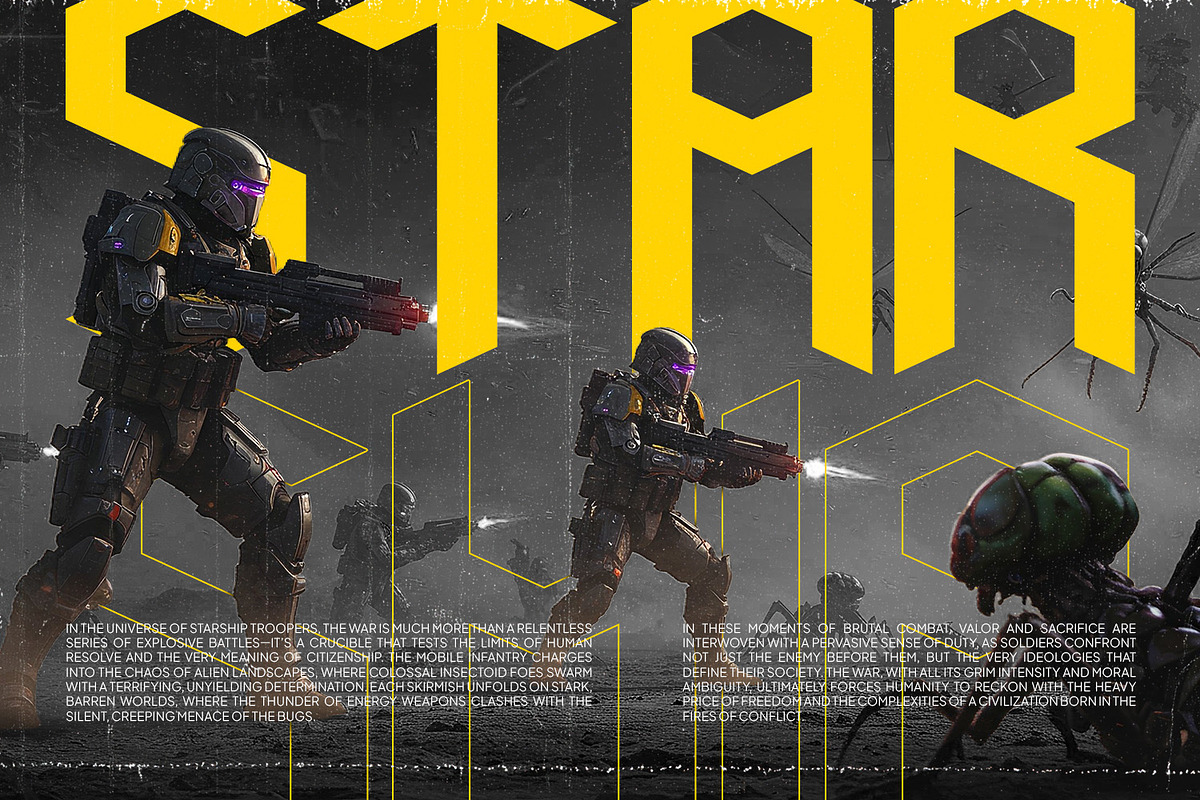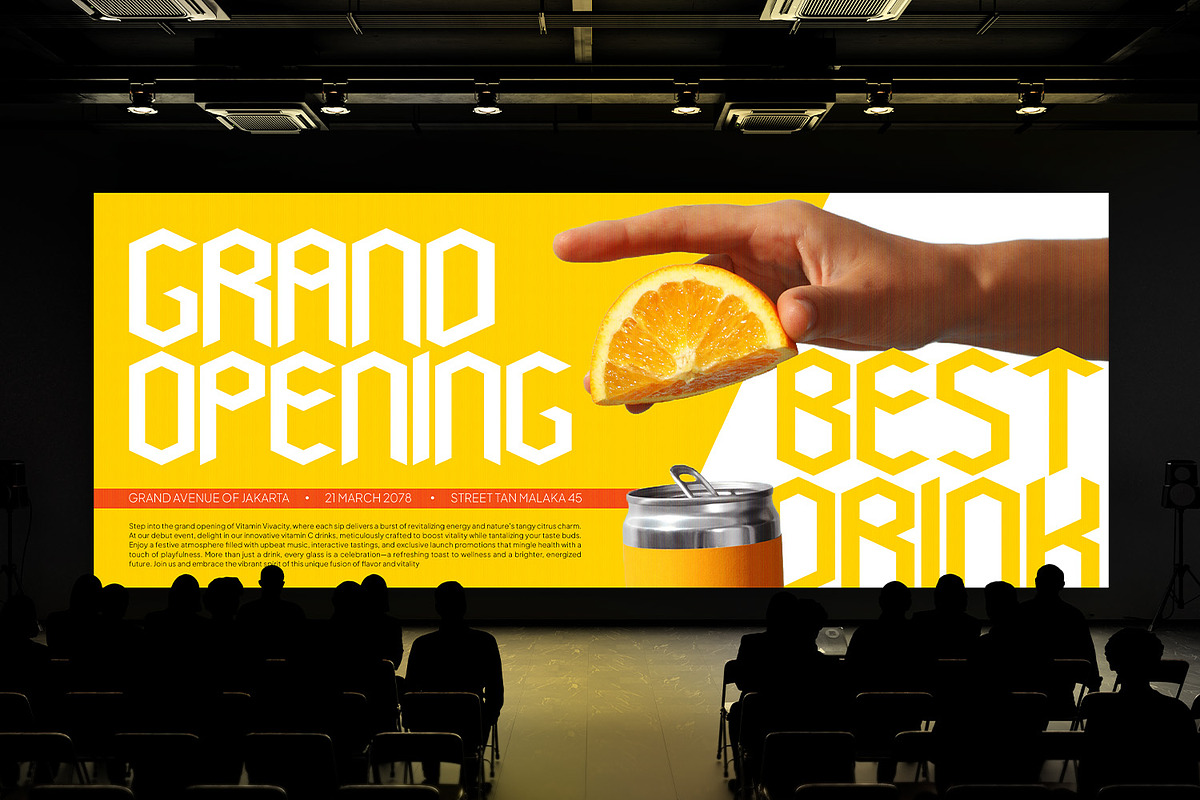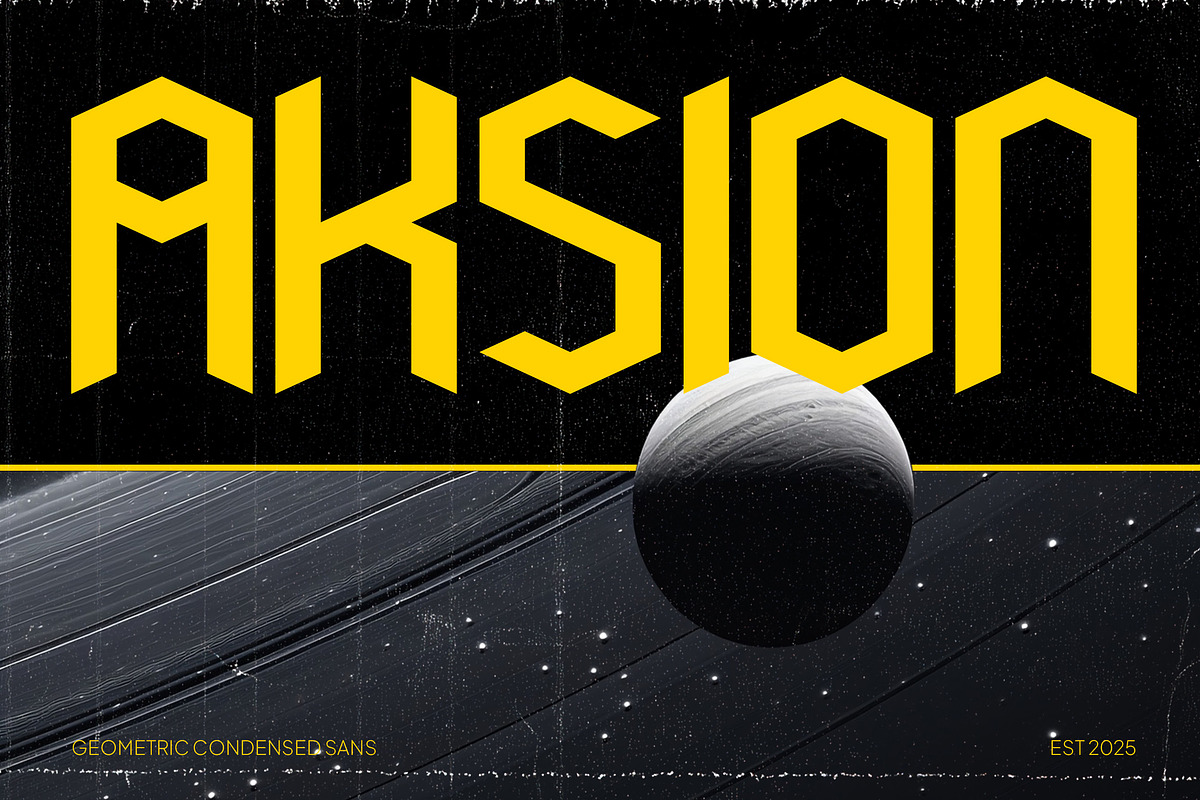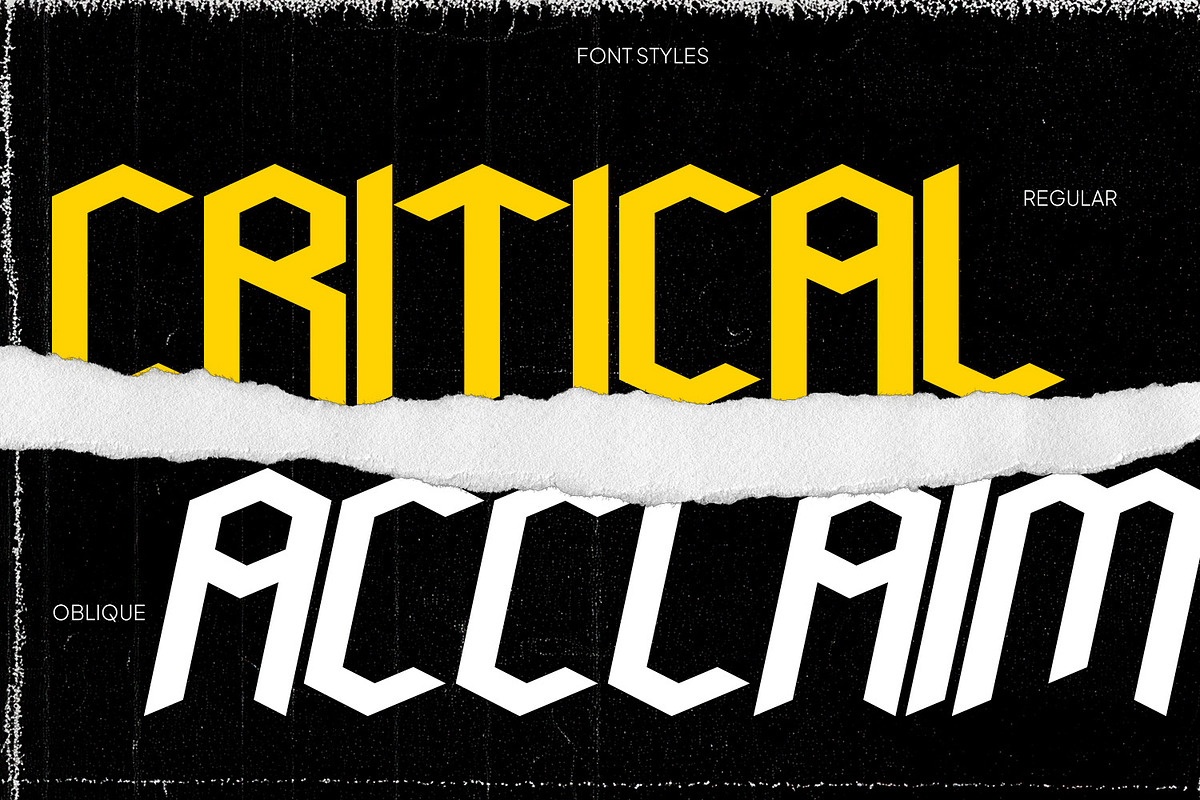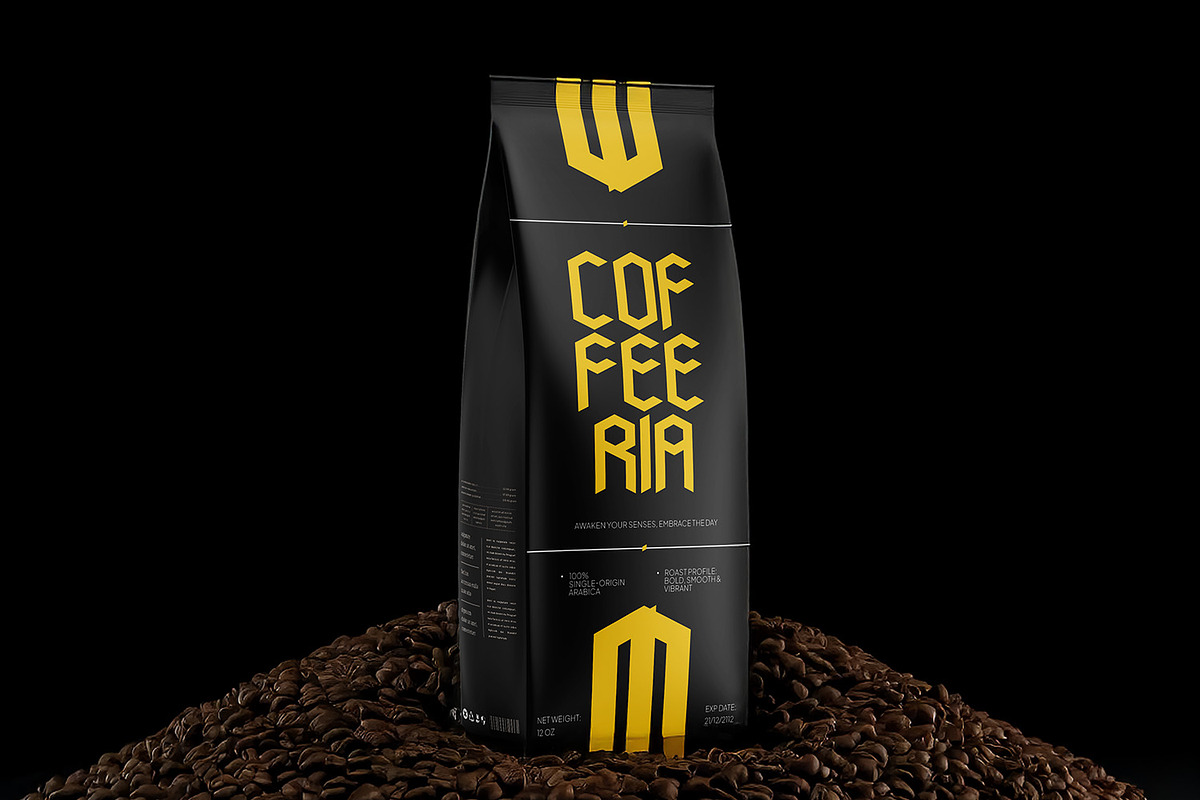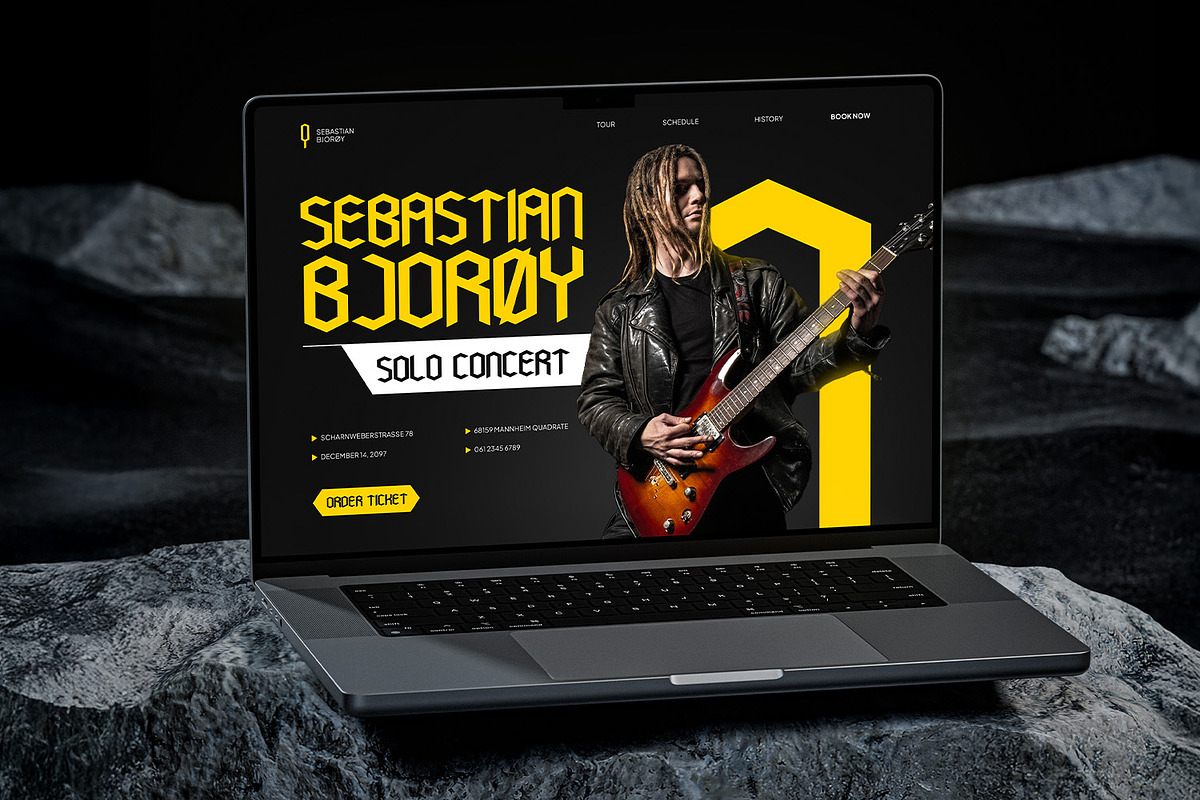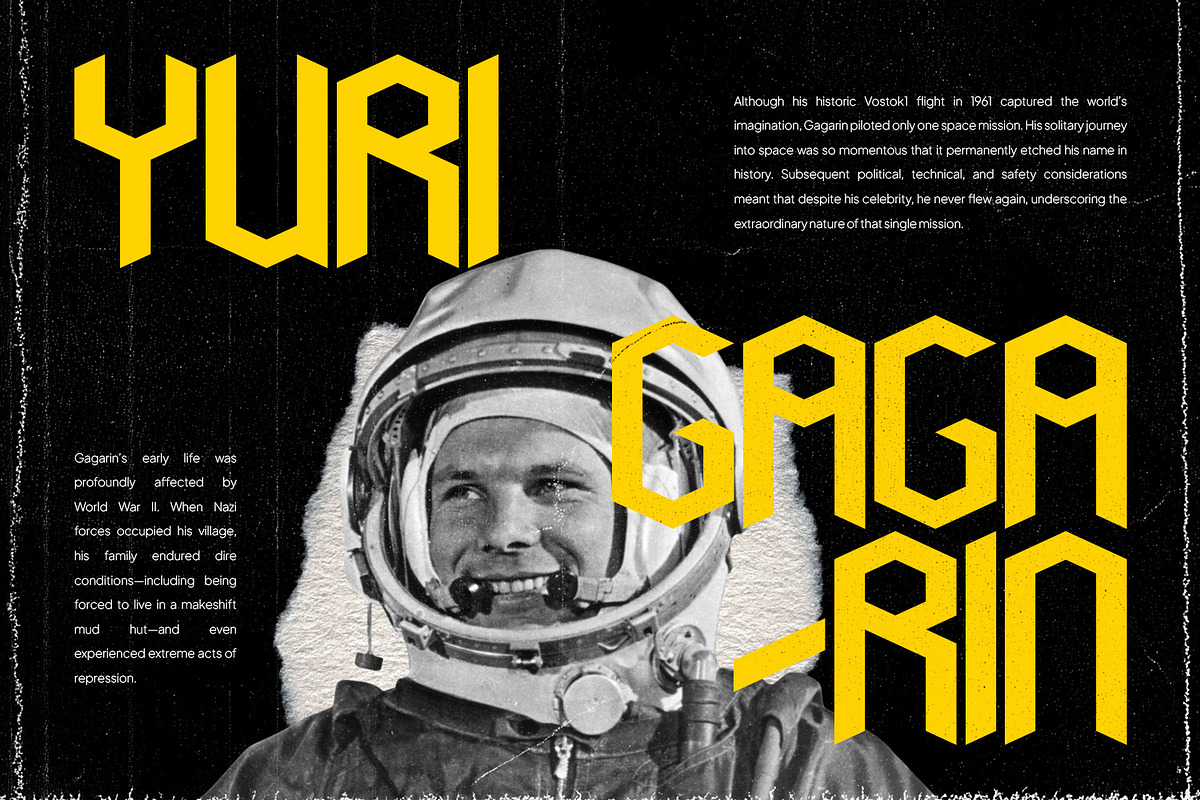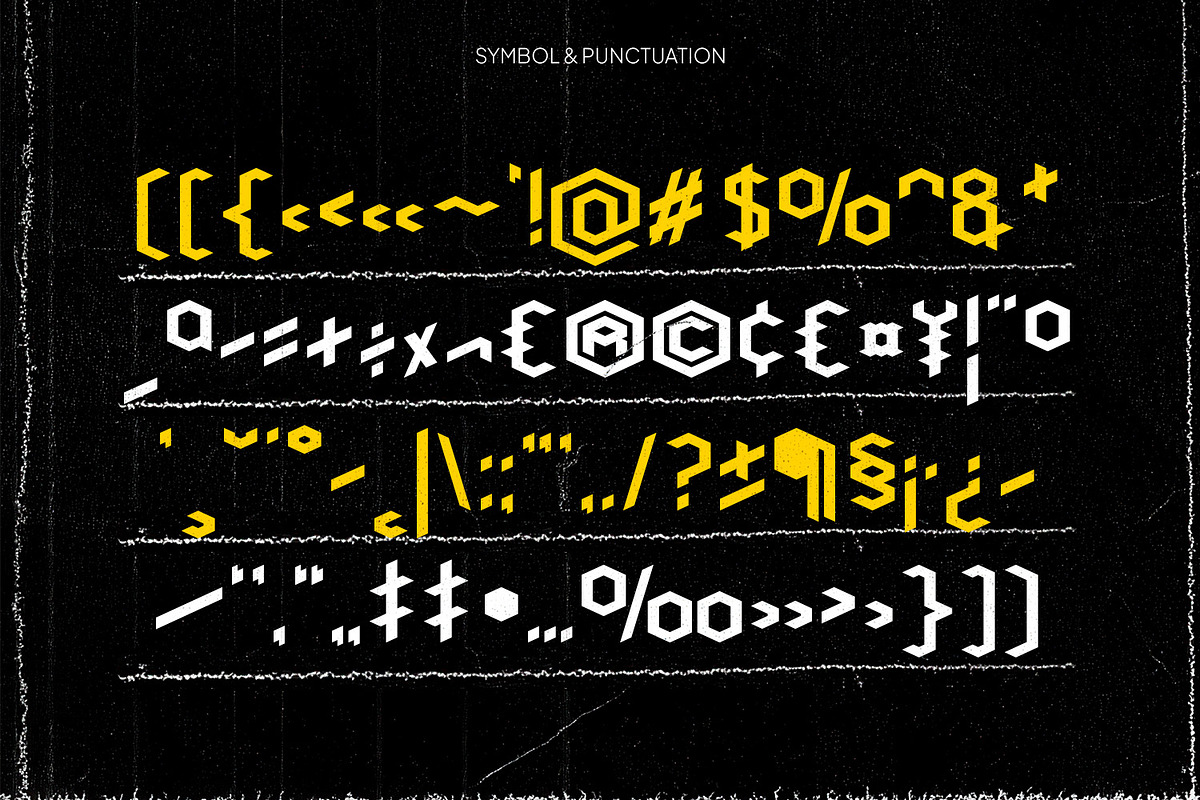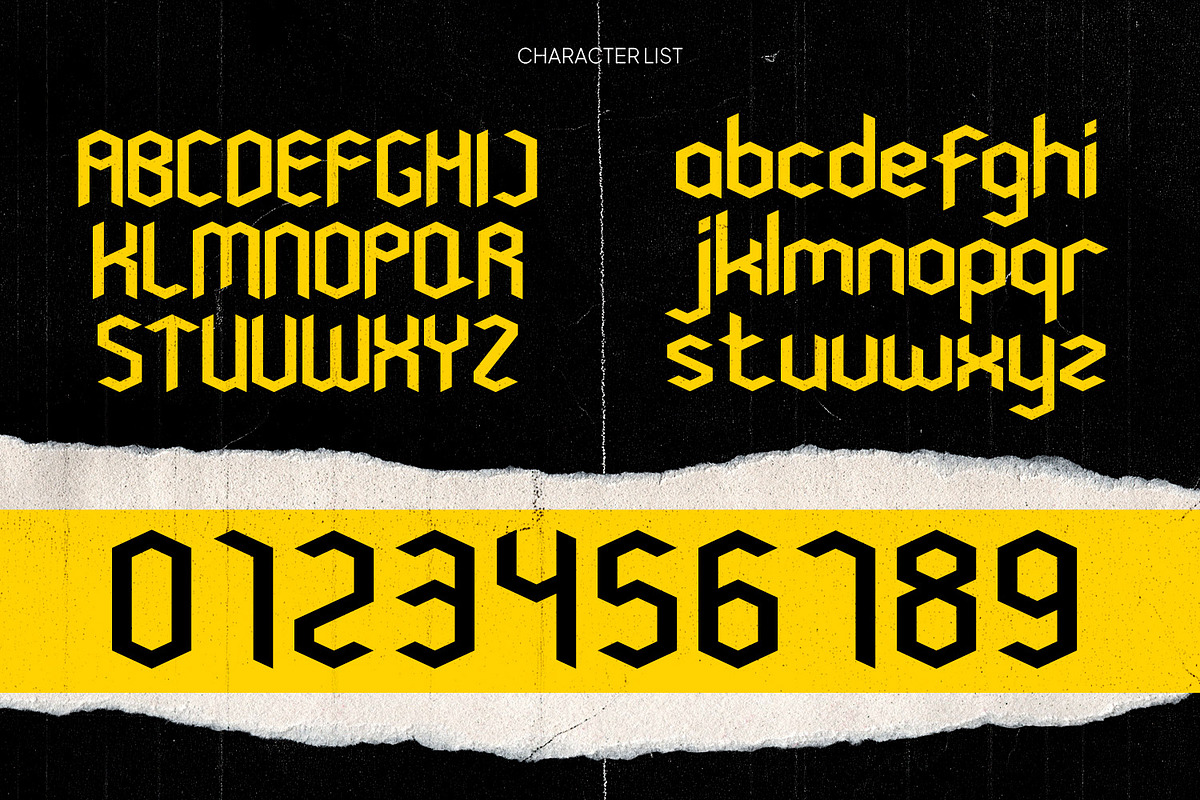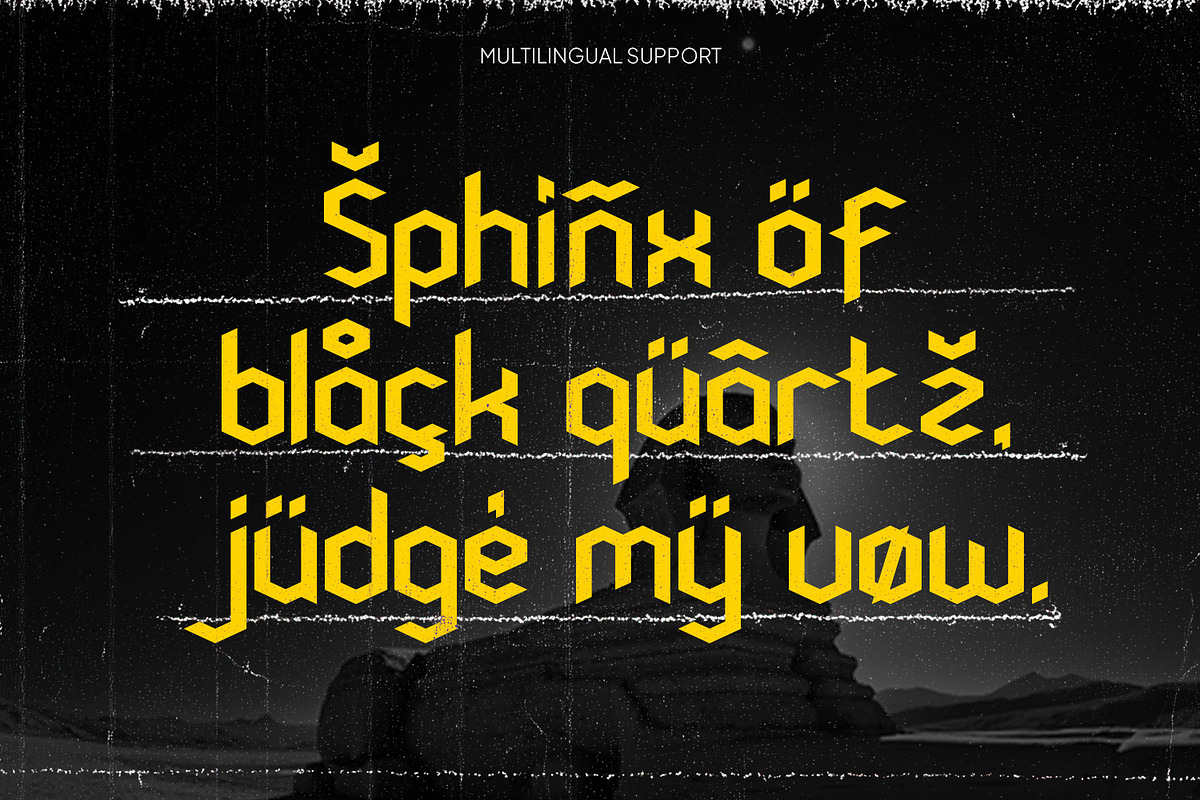
Aksion - Condensed Geometric Sans
Aksion exudes modernity and innovation through its meticulously crafted geometric design that seamlessly blends functional clarity with artistic flair. Each letter is engineered to harness minimal space without sacrificing legibility, making its condensed structure both efficient and visually impactful. The precision of its outlines and the attention to proportional details create a dynamic visual rhythm, ensuring that every character speaks with bold sophistication. Whether deployed in digital interfaces or refined print media, Aksion stands as a testament to contemporary design where form meets function with flair.
Designed specifically for high-impact display applications and creative projects, Aksion’s distinctive aesthetic elevates any composition it graces. Its sleek and compact form, combined with crisp detailing, not only enhances readability but also lends a polished, modern edge to headlines, logos, and editorial layouts. The font’s efficient design bridges the gap between utilitarian purpose and creative expression, making it highly versatile for branding and communication. With Aksion, every type element transforms into a statement of confident innovation, ensuring your messages resonate powerfully and leave a lasting impression.
- 2 Styles Font : Regular and Oblique
- Standard letter A-Z and a-z
- Numeral, Symbol, and Punctuations